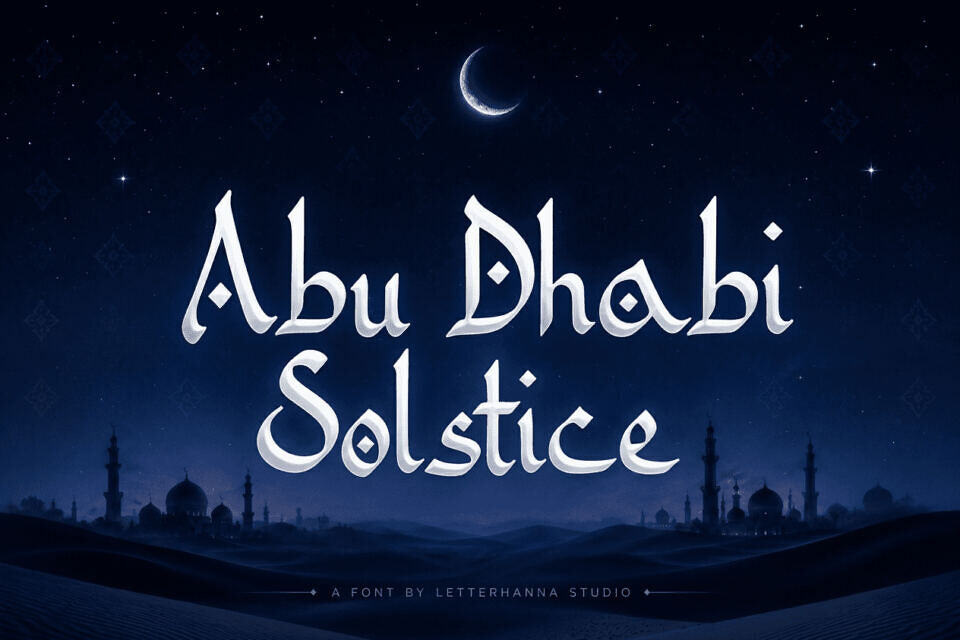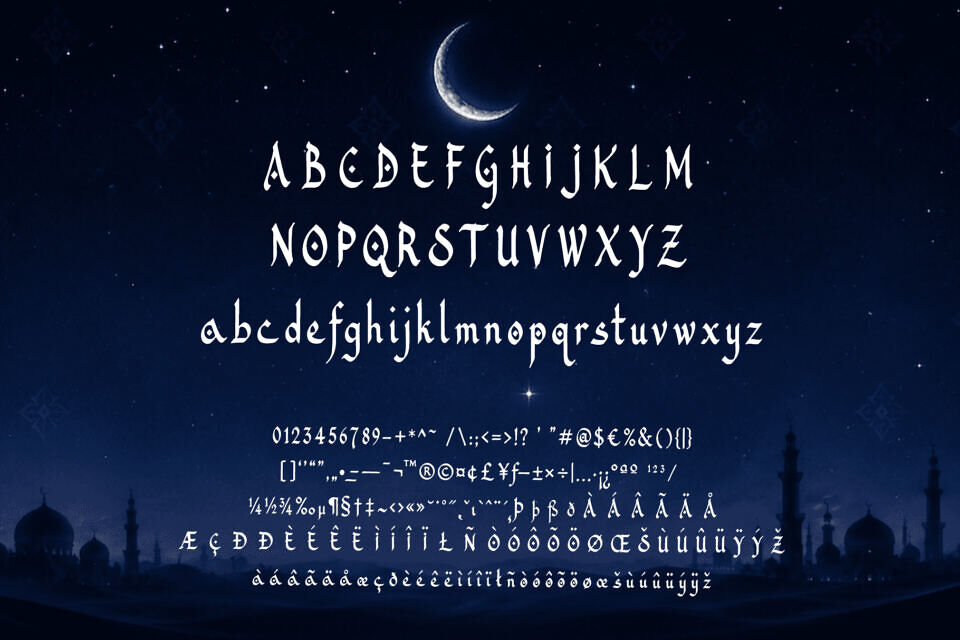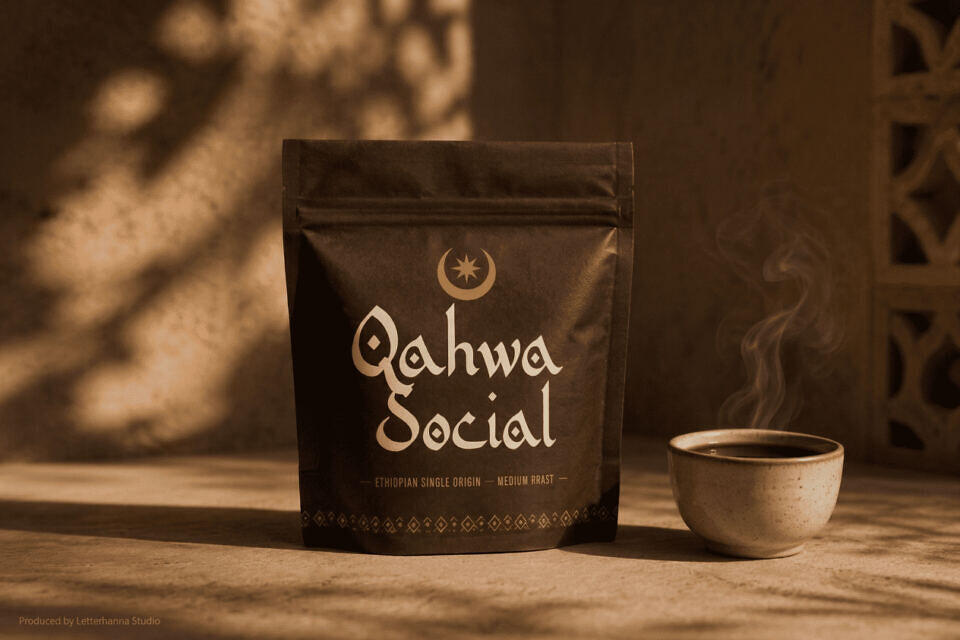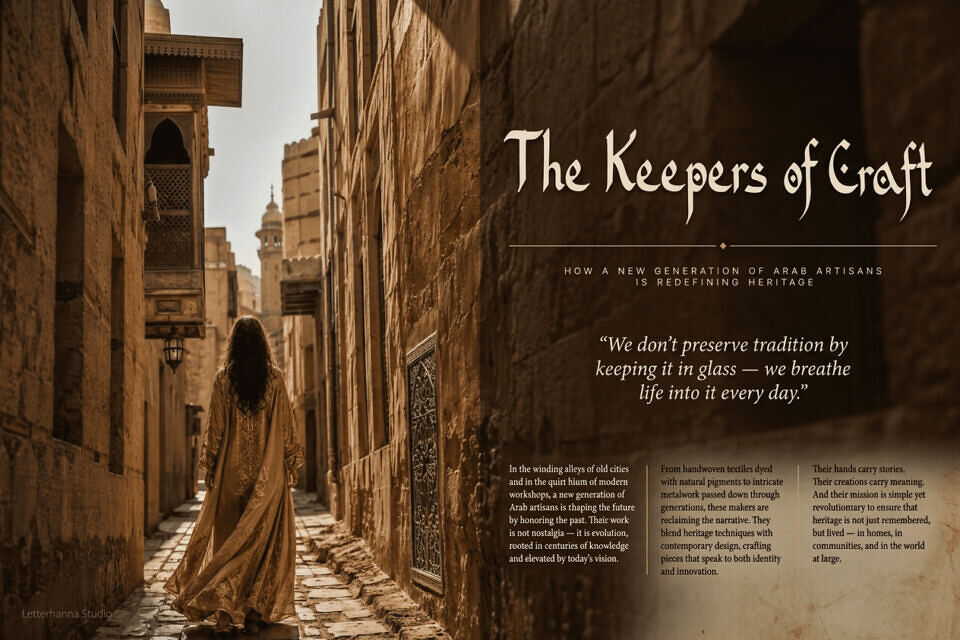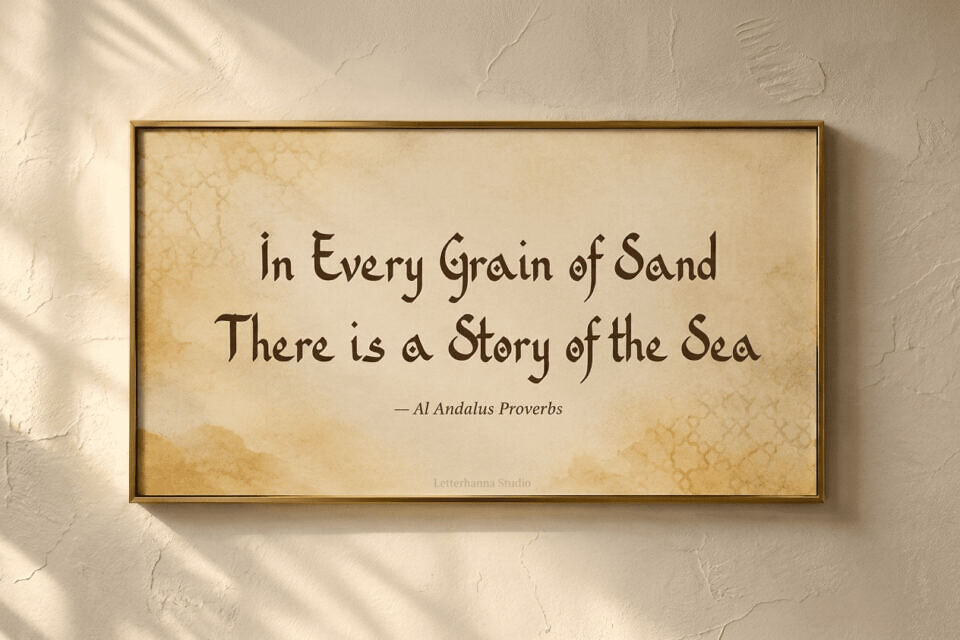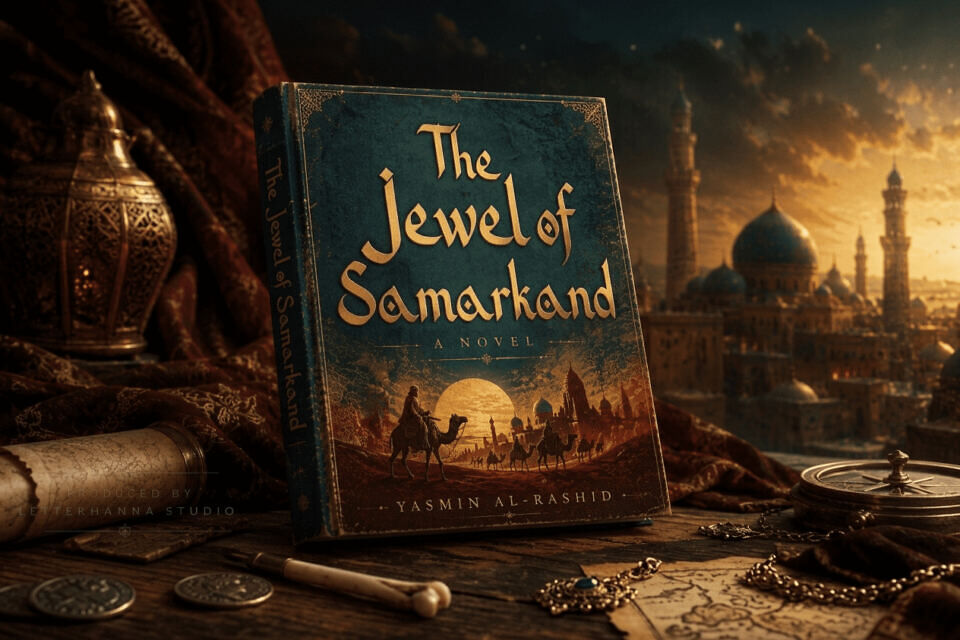
Abu Dhabi Solstice Font
Inspired by the fluid elegance of Arabic calligraphy and the golden grandeur of the Arabian Gulf, Abu Dhabi Solstice was born from a desire to give Latin typography a soul it rarely owns — one rooted in centuries of Eastern artistic tradition, translated for the modern creative.
Abu Dhabi Solstice is built for projects that refuse to blend in. It carries the weight of gold-dipped manuscripts and the warmth of lantern-lit medinas. It speaks the language of luxury perfume brands, cultural editorial spreads, boutique hospitality identities, wedding stationery with an exotic edge, and music artists whose sound lives between worlds.